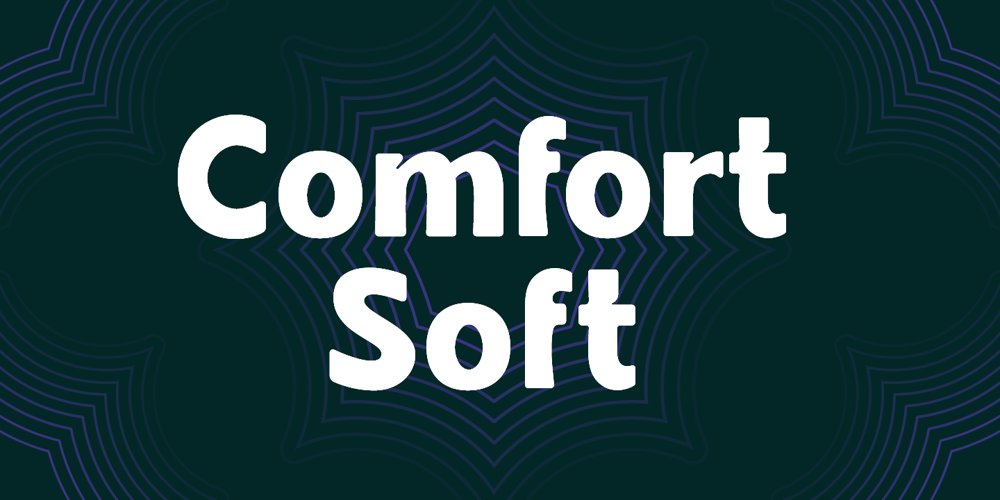
Comfort Soft Font Family was designed by Agne Matulionyte and published by Ideabuk. Comfort Soft contains 3 styles and family package options. Introducing Comfort Sans, a charming display font with retro-inspired design. This soft and rounded typeface with ink-traps, injecting a playful twist into its curvy forms. Comfort Sans evokes a sense of warmth and tranquility, making it ideal for creating inviting headlines, logos, and typographic compositions with a touch of vintage flair. Its unique aesthetic strikes a balance between retro appeal and modern versatility, allowing Comfort Sans to enhance a wide range of creative projects that call for a soothing, timeless, and welcoming vibe.